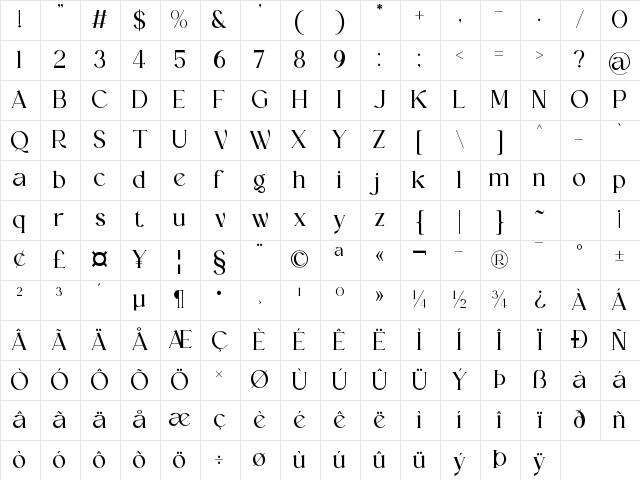
Lady Bloom Regular Free Font
Lady Bloom Regular
Designer: SlideShoot 2023
Design Context for Lady Bloom
Lady Bloom is a composed and adaptable typeface that performs quietly and consistently across a wide range of design contexts.